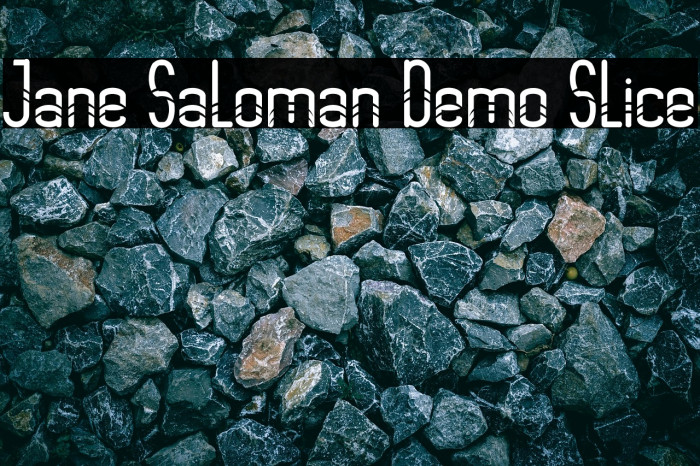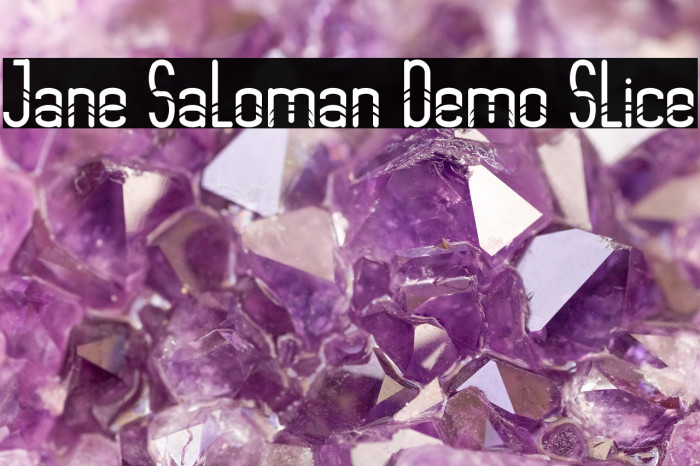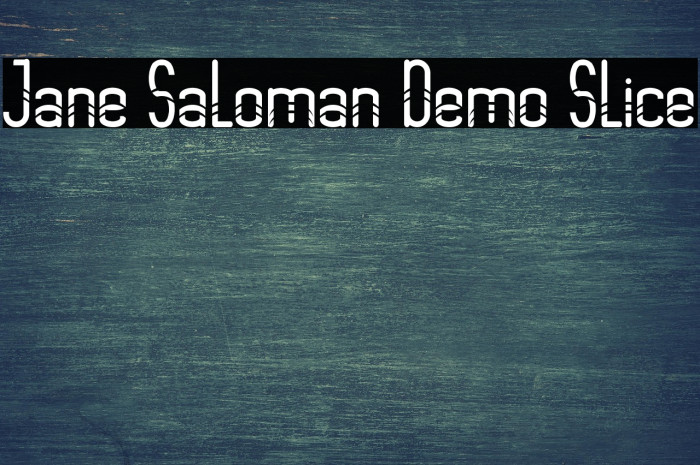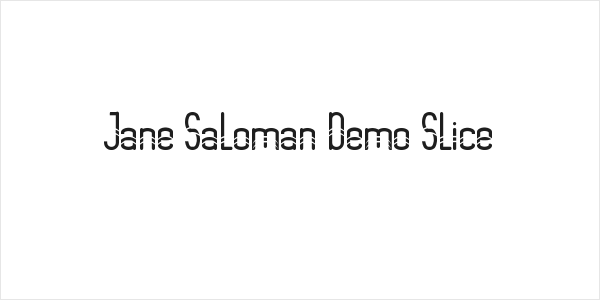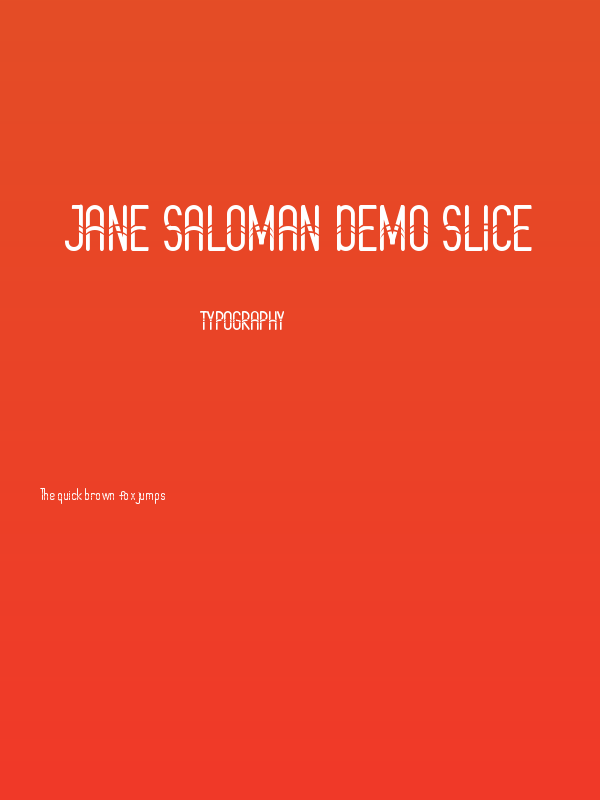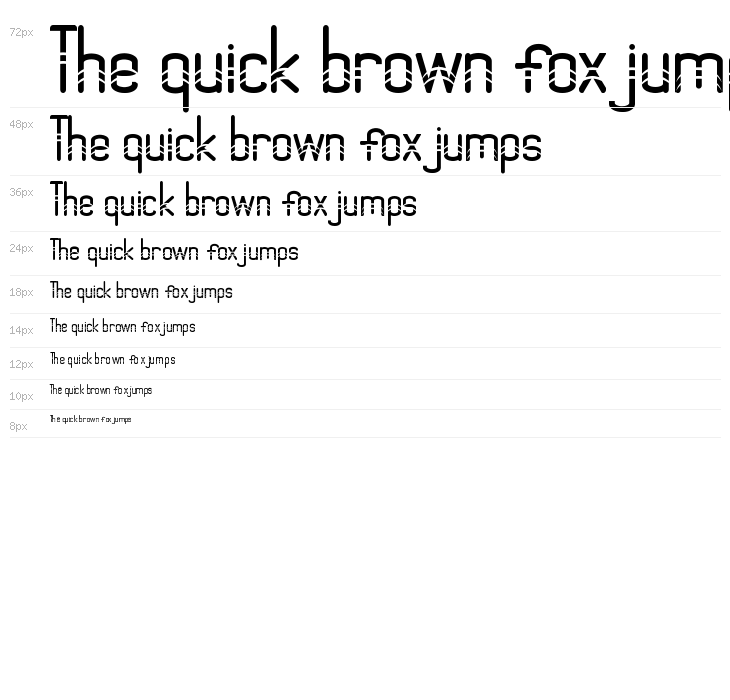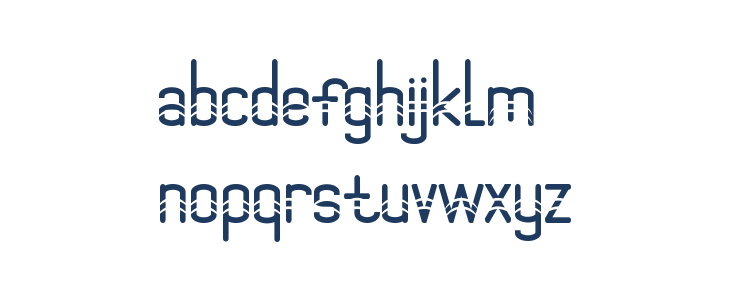
Jane Saloman Demo Slice Font
Jane Saloman Demo Slice Description
This font features a unique and modern design with a decorative twist. The characters are constructed with a clean, sans-serif style, incorporating a distinctive sliced effect that adds a dynamic and contemporary flair. The uppercase and lowercase letters maintain a consistent geometric form, with the sliced elements creating a sense of movement and rhythm across the text. The numerals and special characters follow the same design principles, ensuring uniformity and cohesion throughout the font. This typeface is visually striking, making it ideal for creative and bold design projects.
Proposed ProjectsIdeal for branding, advertising, posters, and any project requiring a modern and eye-catching typeface.